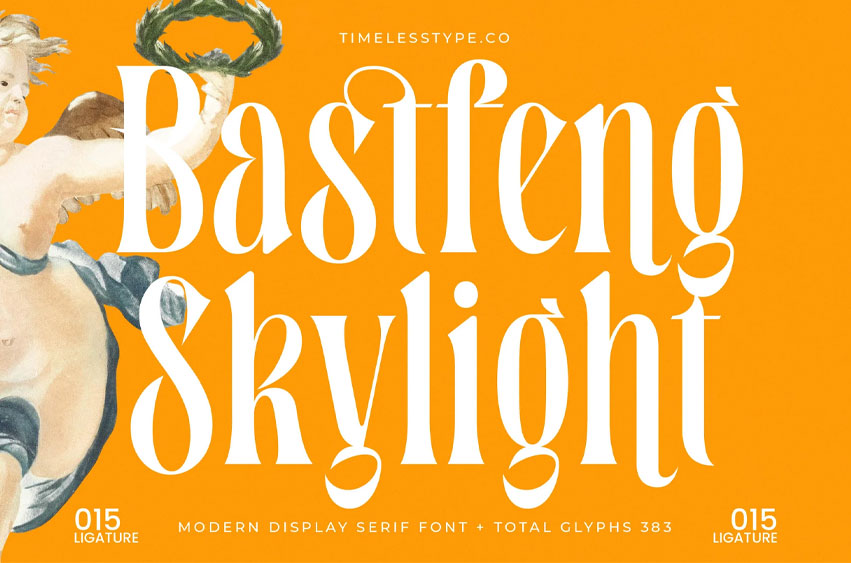
Bastfeng Skylight Font
Bastfeng Skylight Font is an elegant modern display serif crafted with tall, refined proportions, expressive contrast, and sophisticated calligraphic terminals that bring a sense of luxury and artistic drama to any layout.
Featuring 15 meticulously designed ligatures and a total of 383 glyphs, this typeface is ideal for high-end branding, editorial design, fashion campaigns, packaging, and statement headlines. Its sculpted curves, elongated forms, and graceful ornamental touches give designers a powerful tool to create timeless, elevated aesthetics with a contemporary twist.